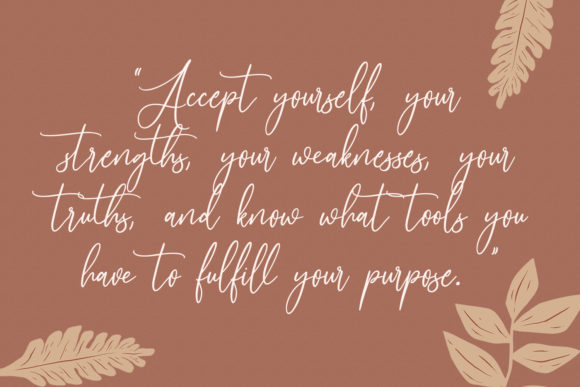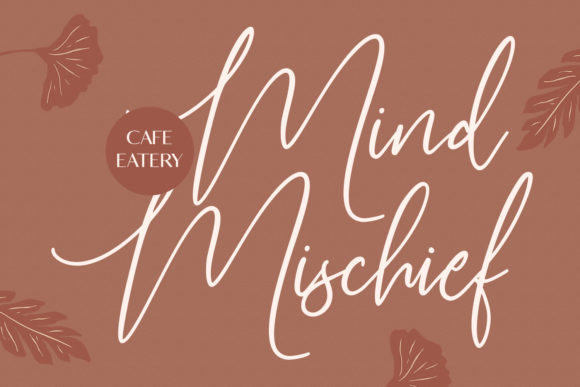
Alto Bonito Font
db-ku.com - Script & Handwritten -- Alto Bonito is a fancy handwritten script font. It features medium contrast strokes, fun characters, ligatures and alternates.